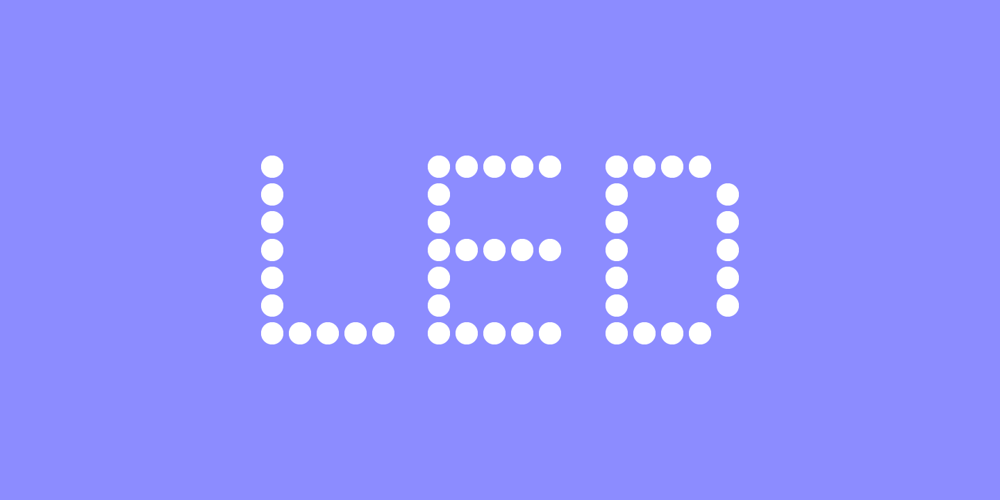
Led Font Family was designed by Pablo Balcells and published by Graviton. Led contains 2 styles and family package options. Led font family has been designed for Graviton Font Foundry by Pablo Balcells in 2012. It is dotted display typeface. Led consists of 2 styles.